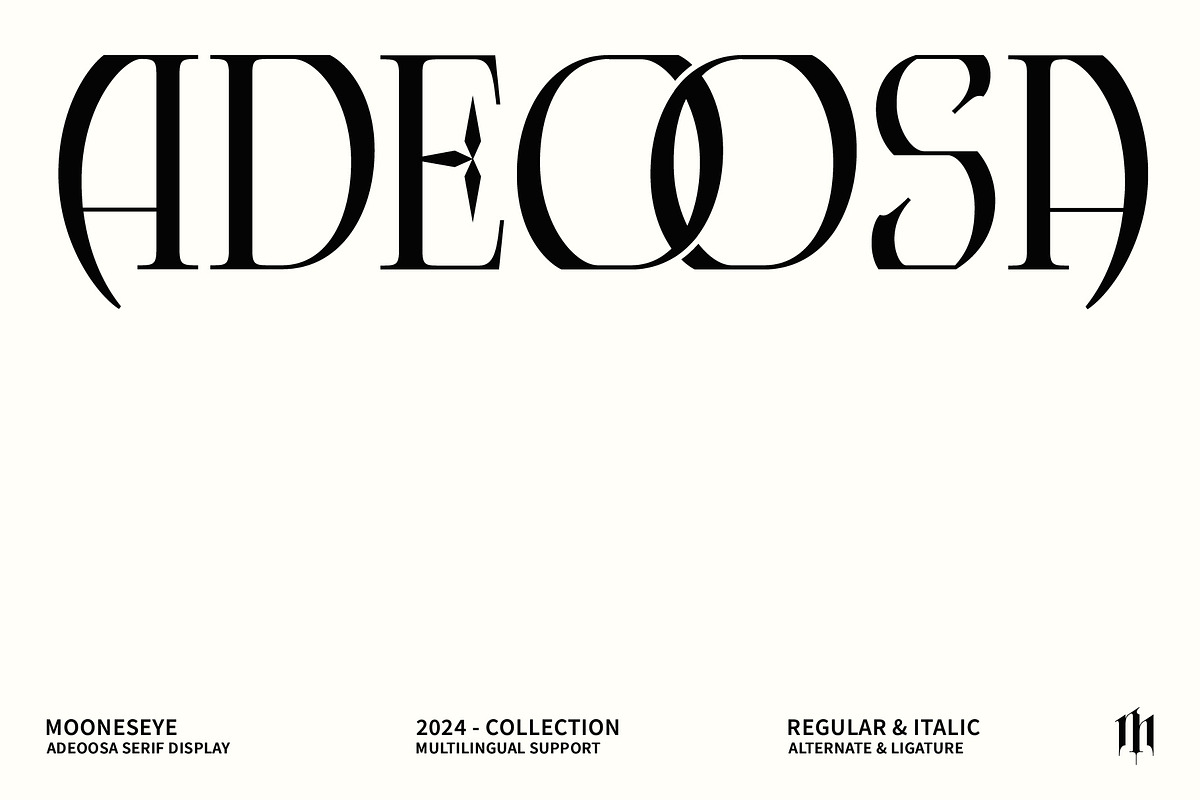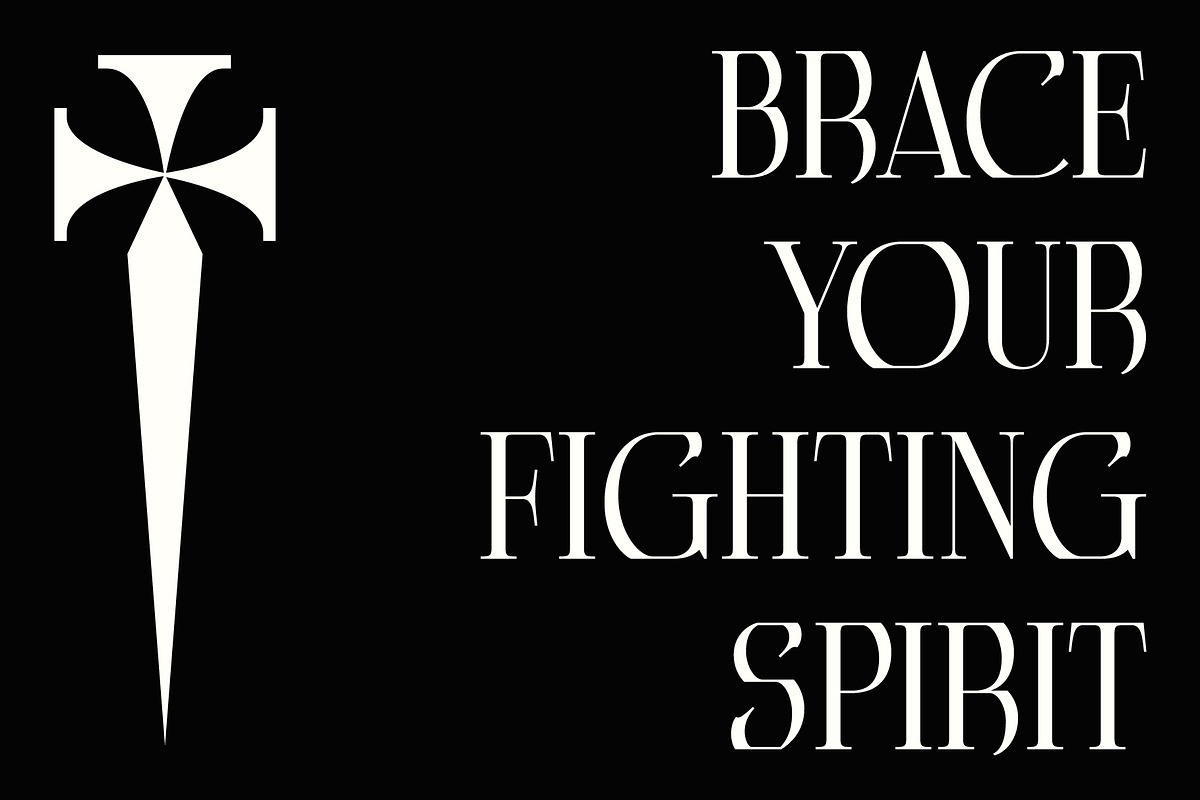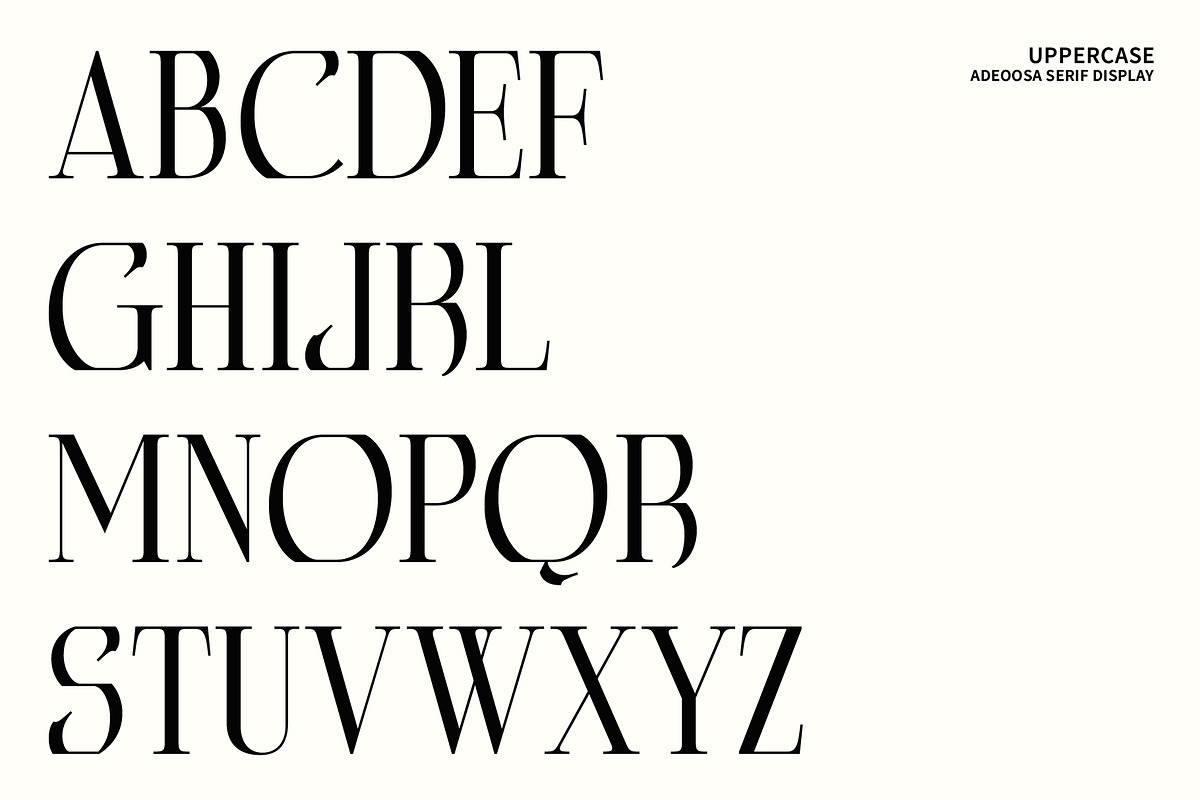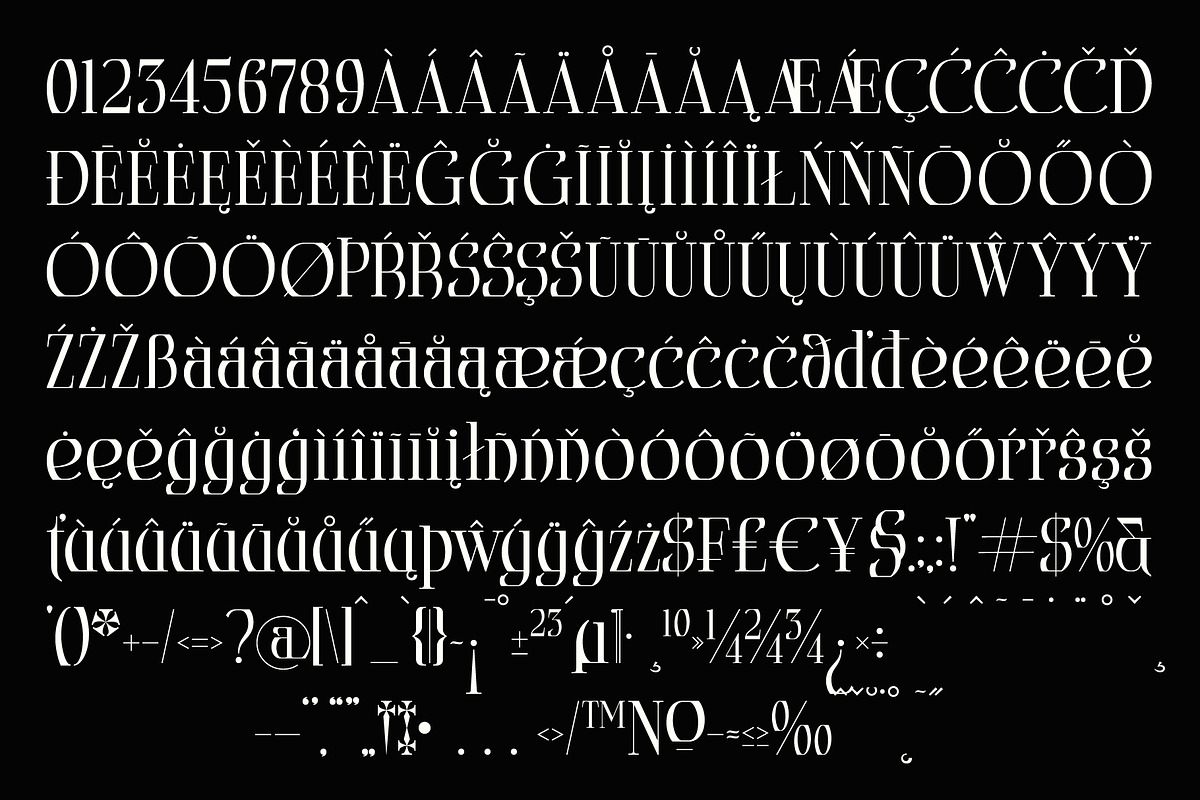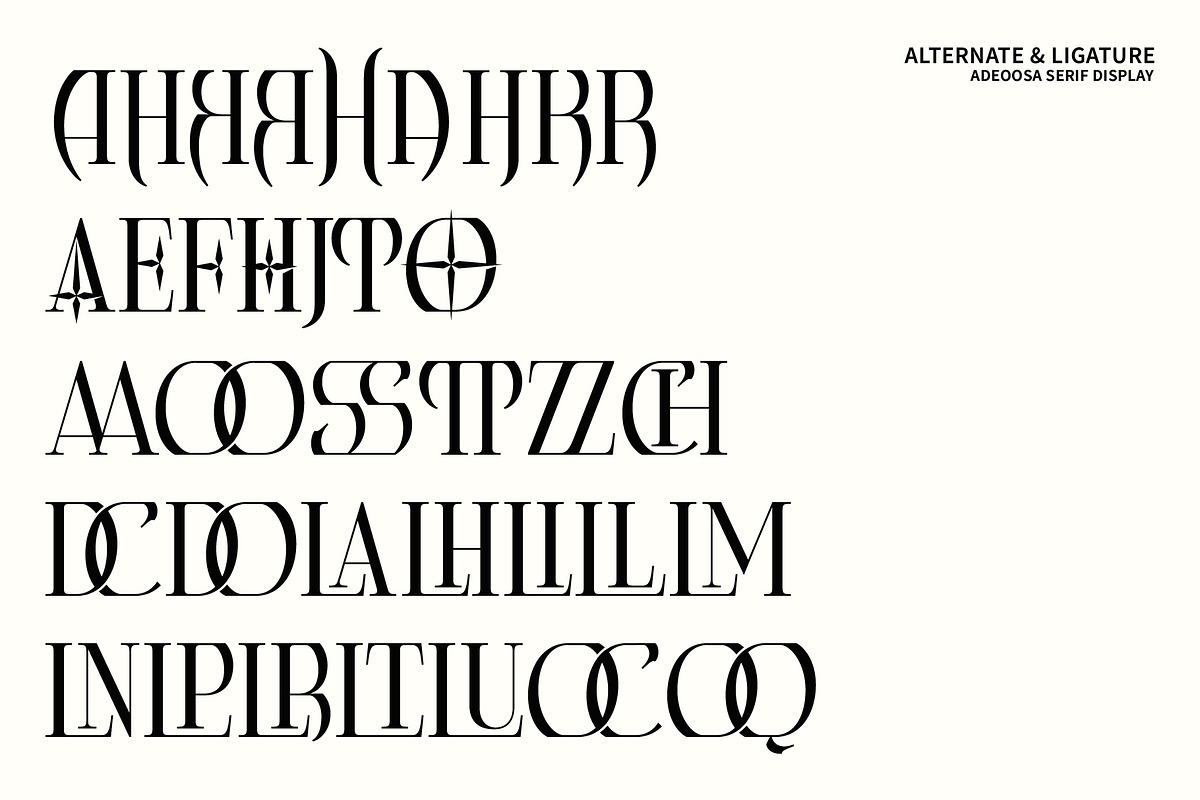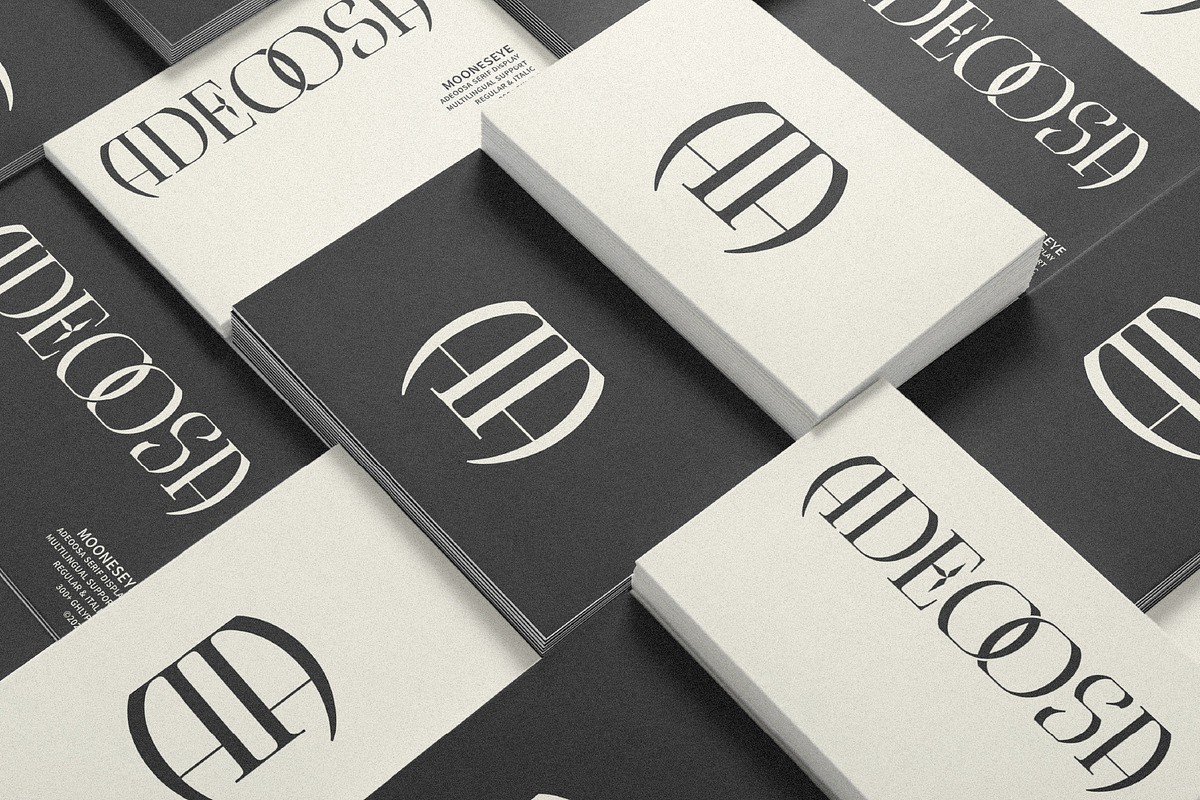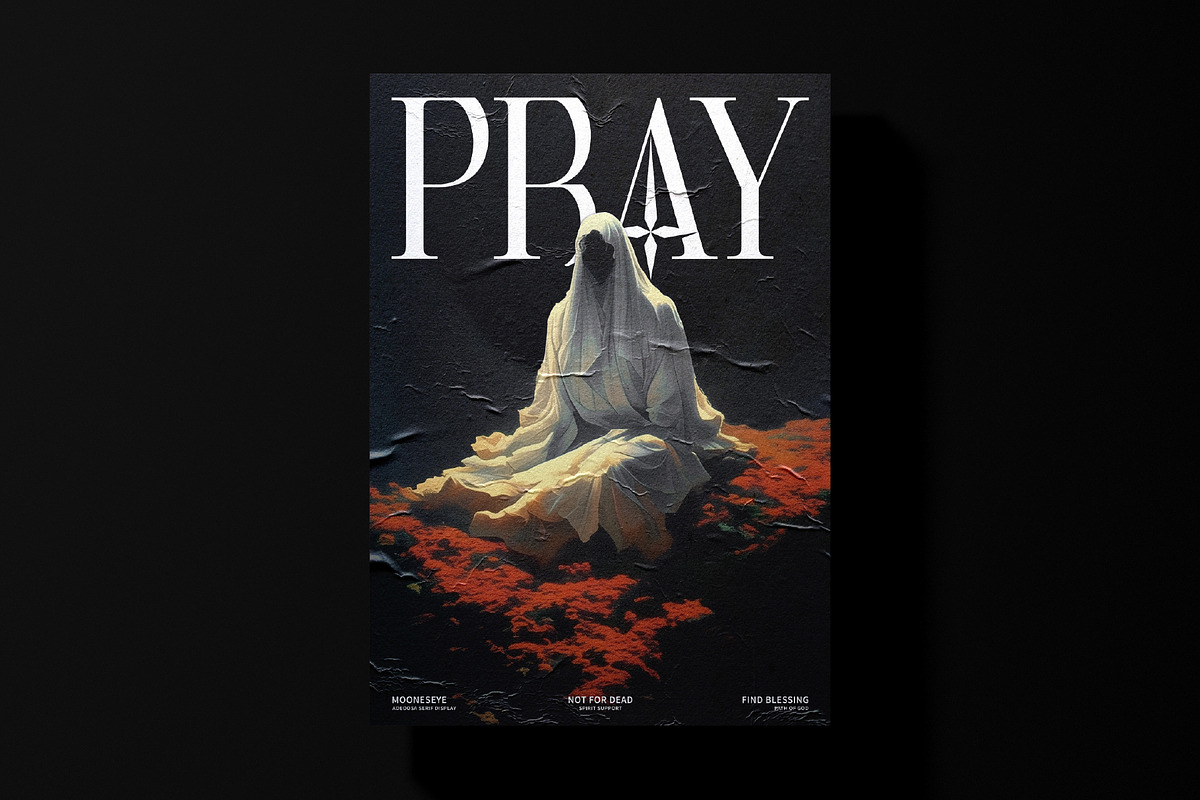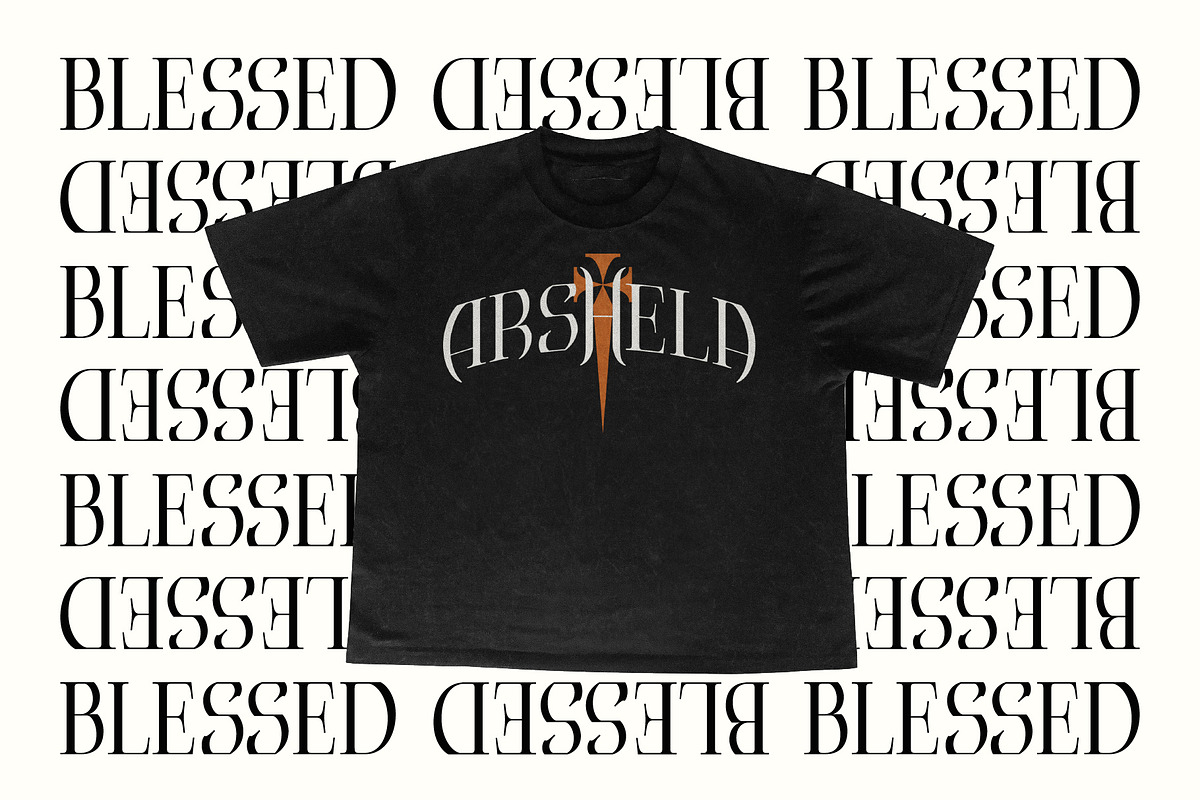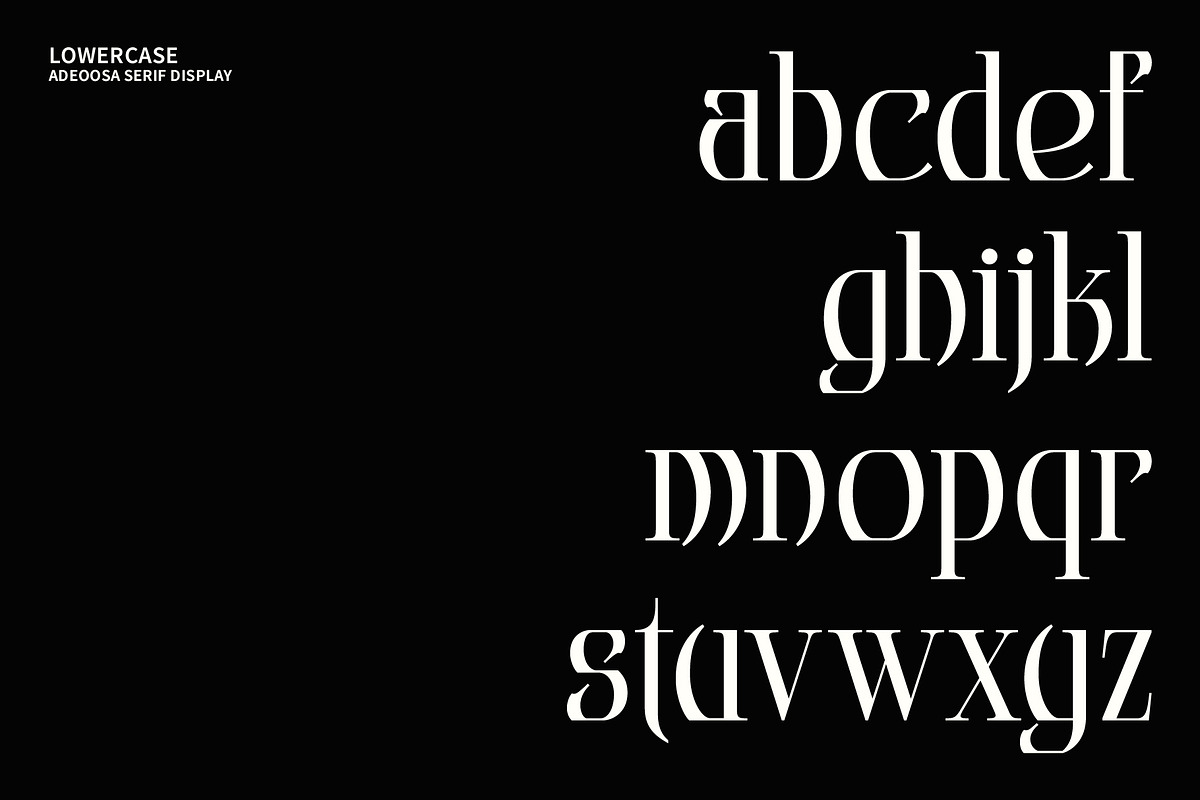
Adeoosa – Gothic Serif Display
Bold elegance. Gothic soul. Modern design.
Introducing Adeoosa Serif Display – a high-contrast serif font that strikes the perfect balance between gothic edge and modern refinement. Designed for bold visual impact, Adeoosa is your go-to typeface for fashion branding, dark editorial titles, streetwear graphics, and statement posters.
From its unique ligatures to its sharp yet graceful curves, every glyph in Adeoosa whispers strength and style. Available in Regular & Italic, with alternates and multilingual support, this font is more than just a typeface – it's a visual identity.
Whether you're designing for high-fashion labels, spiritual streetwear, or moody posters, Adeoosa doesn’t just speak—it commands.